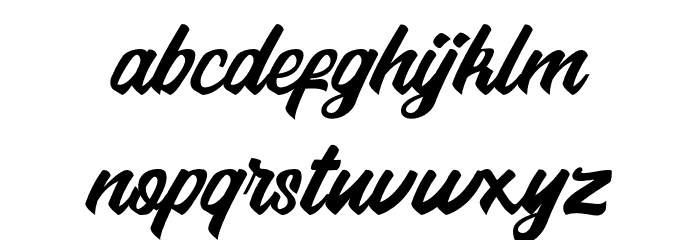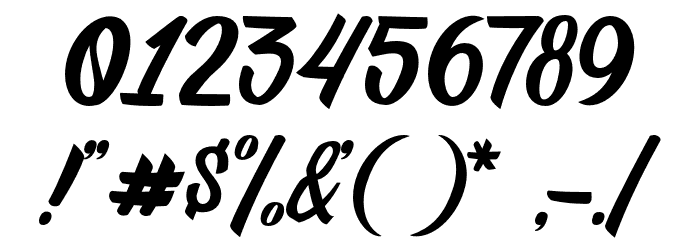
Amigdala Font
This font features a bold and dynamic script style with a strong presence. The letters are connected in a fluid manner, giving it a handwritten feel while maintaining a sense of elegance and sophistication. The uppercase letters are particularly striking, with sweeping curves and a slight slant that adds to the overall movement of the text. The lowercase letters complement the uppercase with their smooth, rounded forms. Numbers and special characters maintain the same stylistic approach, ensuring consistency across all elements. This font is ideal for projects that require a personal touch or a sense of flair.
A bold, dynamic script font with a handwritten feel and elegant curves.